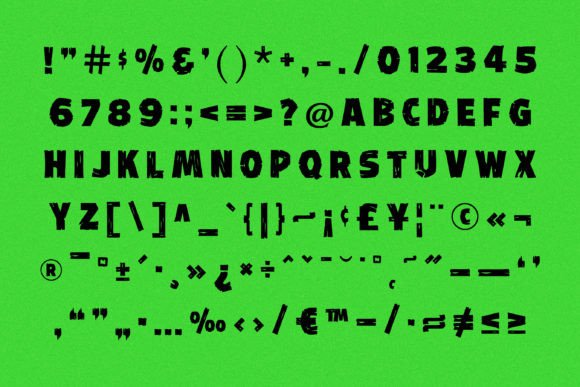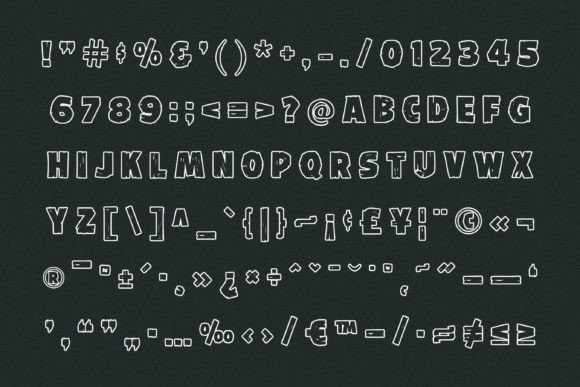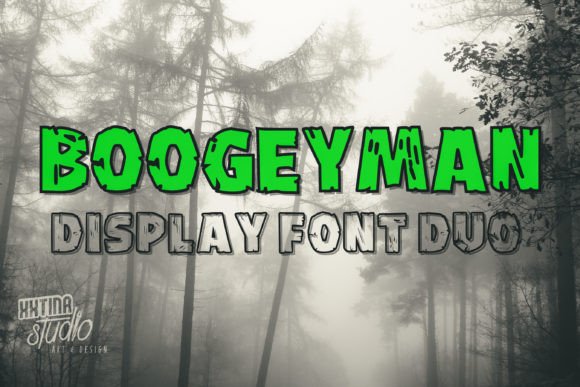
Unleash the Fear with Boogeyman Font: The Ultimate Horror Display Font
Are you a designer or crafter looking for a font that will add a touch of horror and uniqueness to your projects? Look no further than the Boogeyman Font. This cool and unique horror display font is suitable for a wide range of design projects, from Halloween-themed designs to horror movie posters, and even creepy crafts.
What is Boogeyman Font?
Boogeyman Font is a display font designed to evoke a sense of fear and unease. Its unique and creepy design makes it perfect for projects that require a bold and attention-grabbing font. The font is inspired by the classic horror movies and haunted houses, making it a great addition to any design project that requires a spooky touch.
Key Features of Boogeyman Font
• Unique and Creepy Design: Boogeyman Font has a one-of-a-kind design that is sure to grab attention and add a touch of horror to your projects.
• Suitable for a Wide Range of Projects: From Halloween-themed designs to horror movie posters, and even creepy crafts, Boogeyman Font is versatile and can be used for various design projects.
• Easily Readable: Despite its creepy design, Boogeyman Font is easily readable, making it perfect for headlines, titles, and other design elements.
• High-Quality Design: Boogeyman Font is designed with high-quality and precision, ensuring that it looks great in any design project.
How to Use Boogeyman Font in Your Design Projects
Using Boogeyman Font in your design projects is easy. Here are a few ideas to get you started:
• Halloween-themed Designs: Use Boogeyman Font to create spooky and eye-catching designs for Halloween-themed projects, such as party invitations, posters, and decorations.
• Horror Movie Posters: Add a touch of horror and realism to your horror movie posters with Boogeyman Font.
• Creepy Crafts: Use Boogeyman Font to add a spooky touch to your creepy crafts, such as haunted house decorations and spooky signs.
• Typography Design: Experiment with Boogeyman Font in your typography design projects, such as creating bold and eye-catching headlines and titles.
Benefits of Using Boogeyman Font
Using Boogeyman Font in your design projects comes with several benefits, including:
• Unique and Creative Designs: Boogeyman Font allows you to create unique and creative designs that stand out from the crowd.
• Increased Engagement: The creepy and attention-grabbing design of Boogeyman Font can increase engagement and grab the attention of your audience.
• Professional and High-Quality Designs: Boogeyman Font is designed with high-quality and precision, ensuring that your designs look professional and polished.
Font Name Boogeyman Font
Author The Tenacious Type Studio
In conclusion, Boogeyman Font is a unique and creepy horror display font that is suitable for a wide range of design projects. Its key features, such as its unique design, readability, and high-quality design, make it perfect for designers and crafters looking to add a touch of horror to their projects. With its versatility and ease of use, Boogeyman Font is a great addition to any design project that requires a spooky touch.
So, if you’re looking for a font that will unleash the fear and add a touch of horror to your design projects, look no further than Boogeyman Font. Get creative and experiment with Boogeyman Font today!